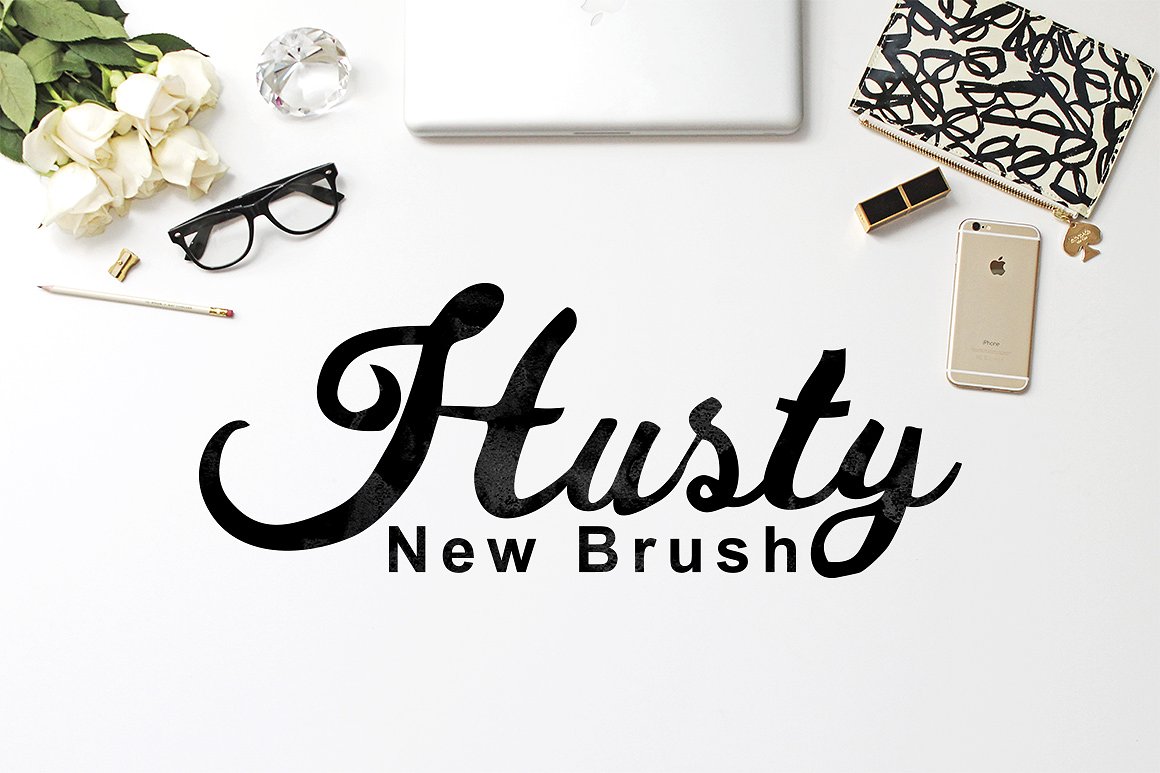
Husty Brush Font
Husty Brush- a new fresh & modern Brush script with a sweet calligraphy-style, decorative characters and a dancing baseline! So beautiful on invitation like greeting cards, branding materials, business cards, quotes, posters, and more!
| Classification: | Brush Fonts, Script Fonts |